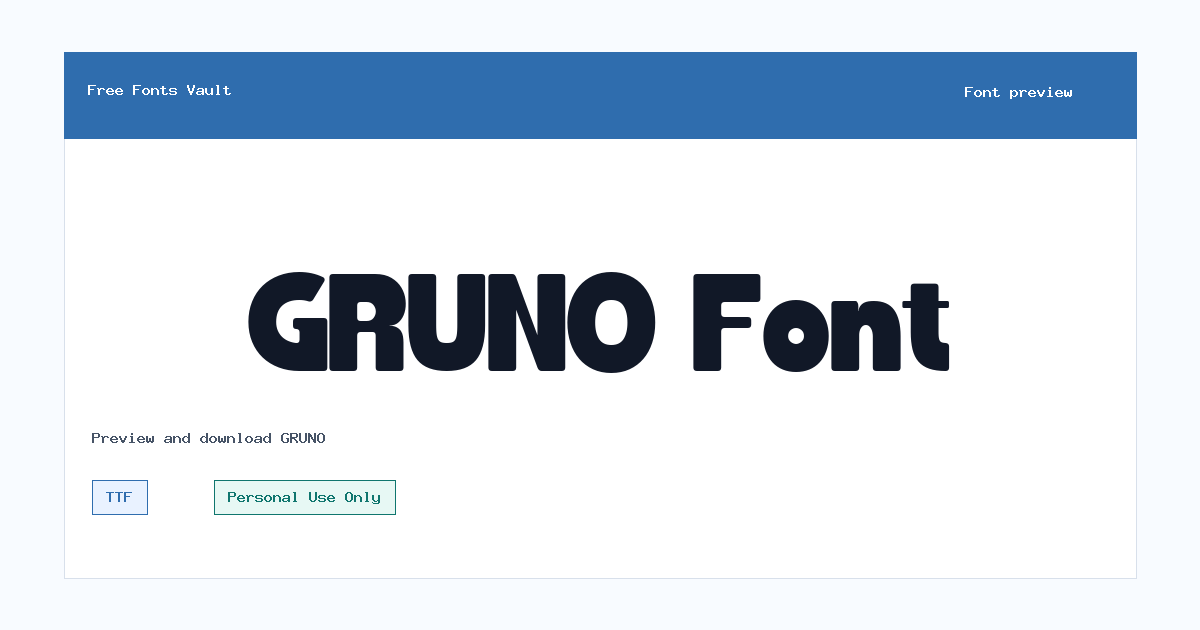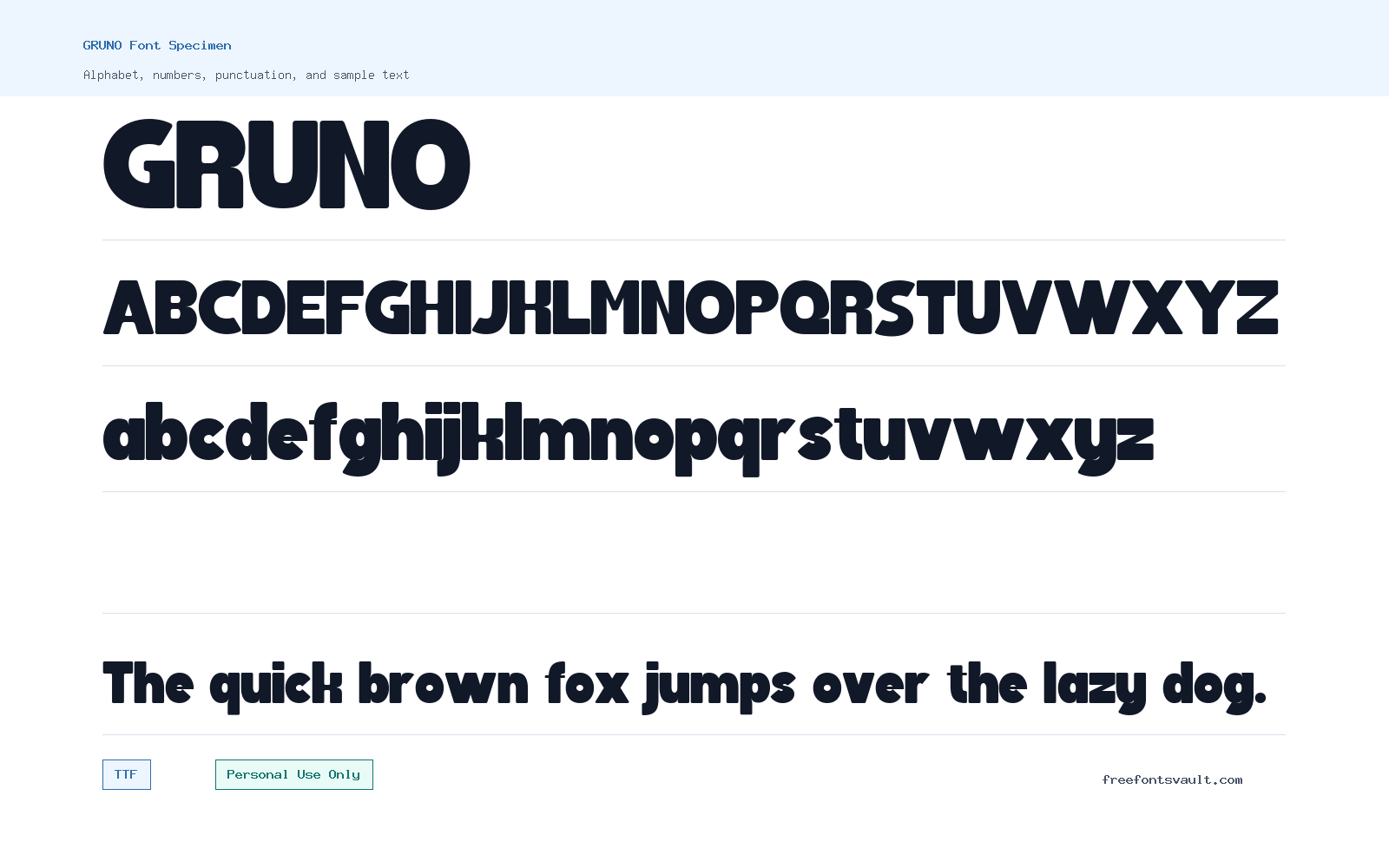
GRUNO
GRUNO font.
GRUNO is a bold sans serif display font with a strong, clean look for short text. It is best treated as a headline font: useful when you want a word, title, poster line, or logo draft to feel solid and direct without relying on decorative scripts or serif details.
About GRUNO Font
GRUNO works well when the type needs to carry the design. Its heavy sans serif shapes give names, titles, and short phrases a firm visual weight, making it a practical option for posters, social graphics, packaging concepts, YouTube thumbnails, event titles, and brand mockups. The style is not built around delicate texture or long reading comfort; it is more effective when used at larger sizes where the letter shapes can breathe. If you are testing it in the preview box, try all caps, a short brand name, a two-word headline, and a number-heavy layout to see how the spacing behaves.
Because GRUNO is a display font, it should usually be paired with a quieter typeface for supporting copy. A neutral sans serif can handle paragraphs, captions, buttons, and product details while GRUNO stays focused on the main wordmark or headline. For logo work, test the font in black and white first, then check it at small sizes before adding color, outlines, shadows, or texture. For web mockups, use it sparingly in hero sections, banners, cards, and campaign graphics rather than full articles or dense navigation menus. The available download is a TTF file in a regular 400 style, so if you need multiple weights, italics, or extended branding systems, check the full licensed version from the designer before committing to a final project.
GRUNO can be especially useful for quick visual exploration. Designers can use it to compare bold wordmark directions, build poster roughs, create personal mood boards, or test merchandise-style lettering. It may also suit mockups for sports, streetwear, music, gaming, food packaging, or bold editorial layouts, as long as the project only needs a compact display voice. Avoid using it for long descriptions, legal text, small mobile labels, or anything that must stay highly readable at tiny sizes. In those cases, keep GRUNO for emphasis and let a simpler companion font do the reading work.
- Bold sans serif display style made for short, high-impact text rather than long paragraphs.
- Clean uppercase and lowercase letter support shown in available character previews.
- Practical for logo drafts, poster titles, web hero text, social graphics, and packaging concepts.
- Works best when paired with a neutral sans serif for body copy, captions, and interface text.
- Poster headlines and event title graphics
- Personal logo concepts and wordmark experiments
- Social media images, thumbnails, and bold quote layouts
- Web mockup hero sections and landing page banners
- Packaging concepts, stickers, labels, and merchandise-style lettering
- Short display text where a strong sans serif shape is more important than long-form readability
Use GRUNO at display sizes and keep the text short. Start with simple words in uppercase and title case, then adjust letter spacing if the design feels too tight. For cleaner layouts, pair it with a plain sans serif such as an open, readable text face for paragraphs and UI details. In logo or poster drafts, test the font on light and dark backgrounds and export a small-size preview before finalizing, because heavy display fonts can lose clarity when reduced too far.
What kind of font is GRUNO?
GRUNO is a bold sans serif display font. It is better for headlines, logos, posters, and short text than for paragraphs.
Is GRUNO good for website text?
It can work in a web mockup for hero headings, banners, or short calls to action. It is not the best choice for long articles, menus with many items, or small body text.
What should I pair with GRUNO?
Pair it with a simple, readable sans serif for body copy and small details. Let GRUNO handle the main headline while the companion font keeps the rest of the layout easy to read.